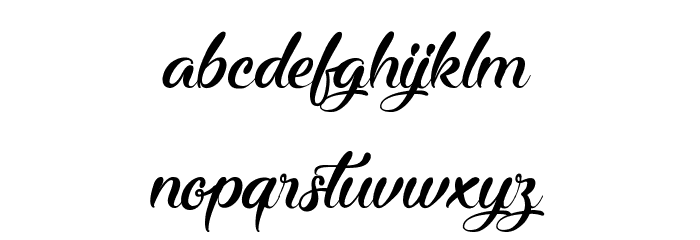
Midnight Valentine Font
This elegant script font features flowing, cursive letters with a romantic and sophisticated flair. The uppercase characters are ornate, with intricate loops and swirls that add a touch of elegance. The lowercase letters maintain a smooth, connected style, enhancing the overall fluidity of the font. Numbers and special characters are designed to match the script's graceful aesthetic, making it suitable for formal invitations, branding, and decorative purposes. The font's style is reminiscent of classic calligraphy, yet it maintains a modern touch that makes it versatile for various design projects.
An elegant script font with flowing, cursive letters and a sophisticated flair.
- Proposed Projects: Ideal for wedding invitations, branding, greeting cards, and decorative designs.
- Category: Script
- Overall Style: Classic
- Use Case: Logos, Invitations, Decorative text